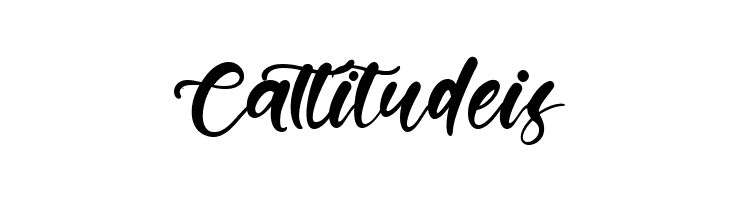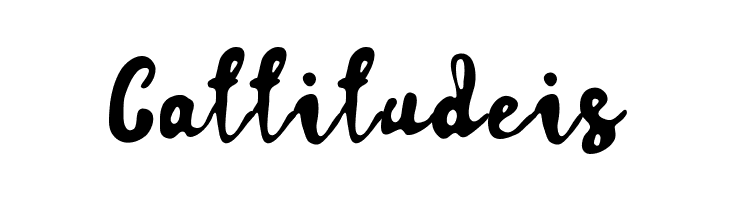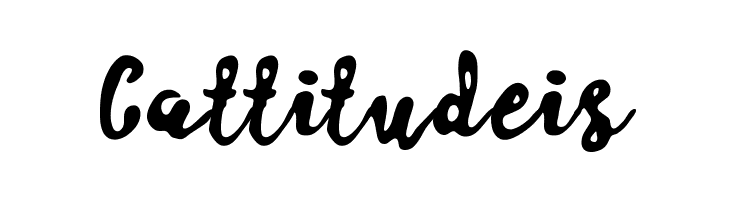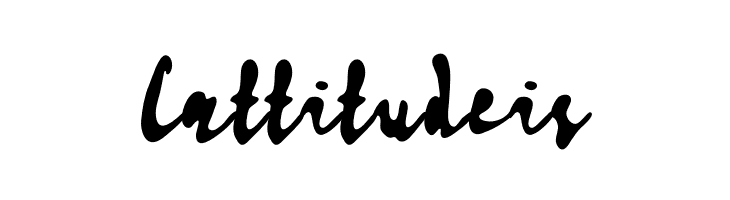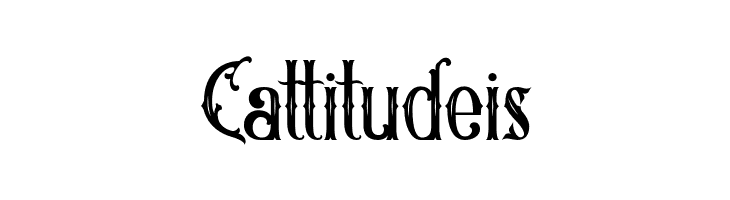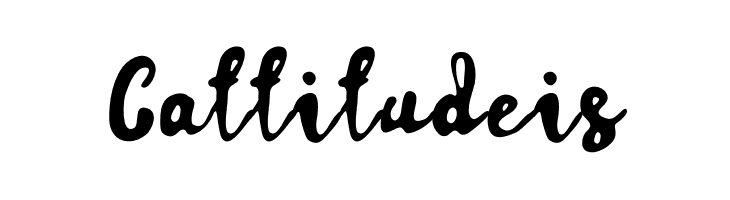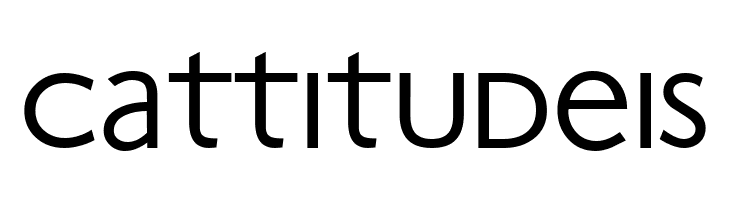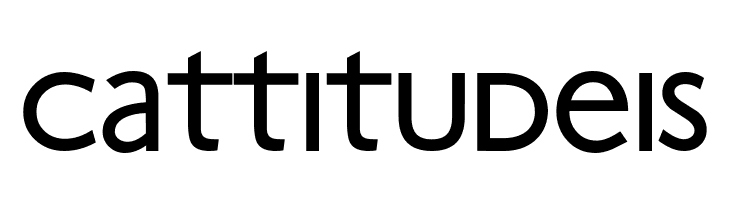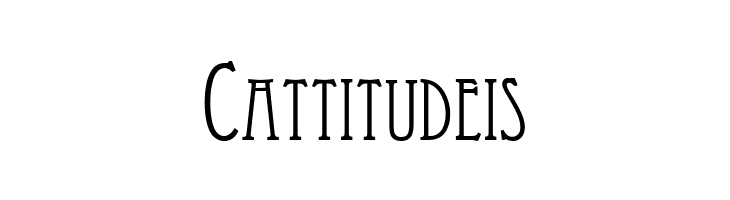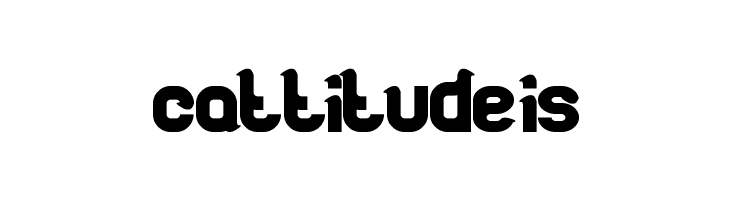
• ARTHILA
A modern serif font with sharp angles and clean lines.
• ARTHILA Bold
A bold, modern font with angular uppercase letters and consistent boldness throughout.
• Arthines
A bold, flowing script font with elegant curves and smooth strokes.
• Arthington
A dynamic and elegant script font with flowing cursive design.
• ARTHIQUE DEMO
A modern, geometric font with clean lines and balanced spacing.
• Arthosdemo
A bold, artistic font with thick strokes and a whimsical style.
• ArthritishSpringtime
An elegant calligraphic font with flowing, ornate strokes.
• Arthur Dale Demo
An elegant, flowing script font with smooth, cursive strokes.
• Arthur Gothic
A bold, Gothic-inspired font with sharp, angular lines and high contrast.
• Arthur Hill
A dynamic brush script font with fluid strokes and an artistic feel.
• Arthur Keith
A dynamic and expressive handwritten font with fluid, energetic strokes.
• Arthur Regular
A bold blackletter font with sharp, angular lines and intricate detailing.
• Arthur Taniya
A bold, flowing script font with elegant, cursive strokes.
• Arthur Taniya
A bold, flowing script font with a modern and elegant style.
• ArthurdaleDemo
An elegant, flowing cursive font with intricate loops and smooth connections.
• Arthure
A dynamic, brush-style font with expressive, fluid strokes.
• Arthure
A bold, brush-style handwritten font with dynamic strokes and a casual elegance.
• Arthus1 Hig6htone
A whimsical and decorative font with intricate loops and flourishes.
• Articha
A flowing, cursive script font with elegant, connected letters.
• Artifact
A modern, abstract font with thin, intersecting lines forming geometric characters.
• Artificial Box